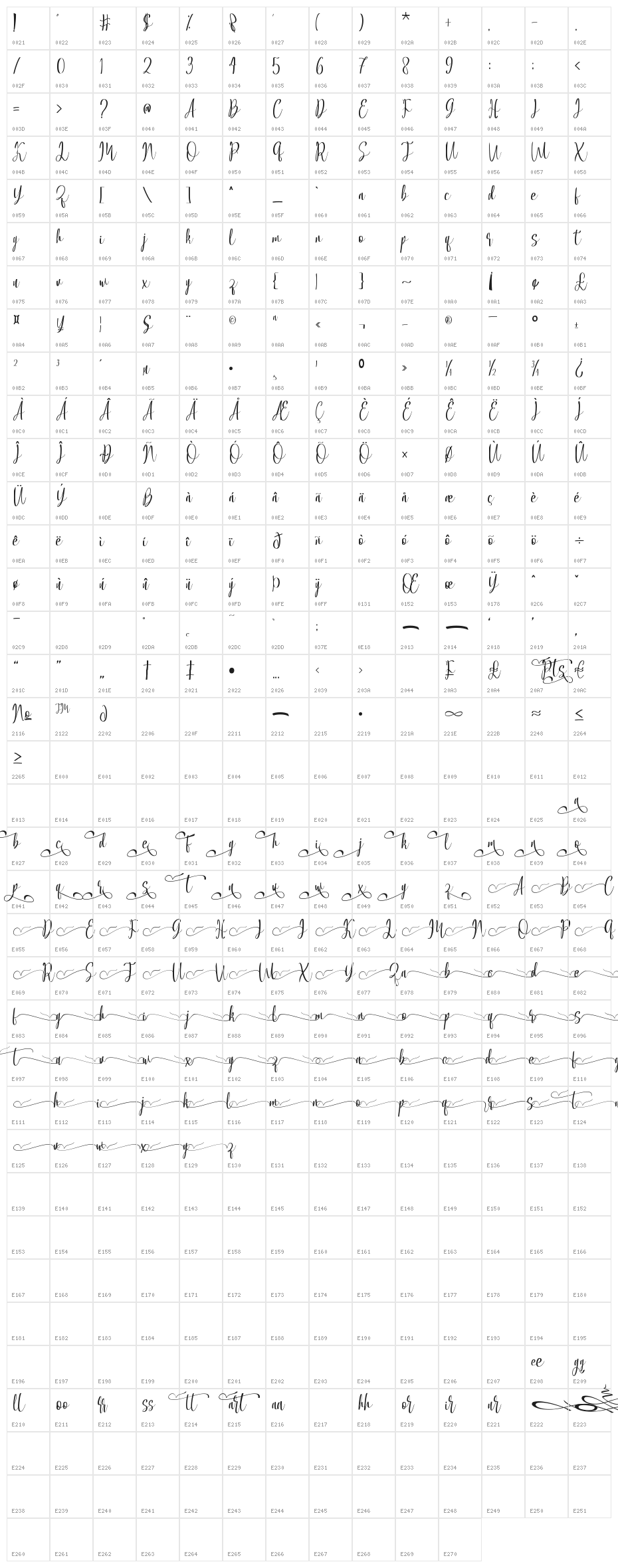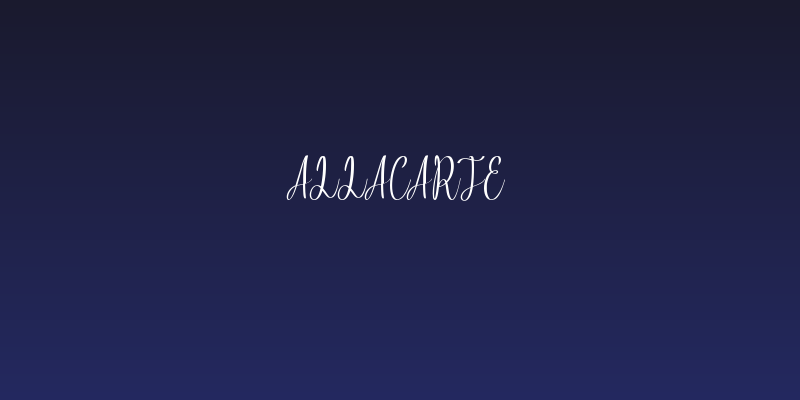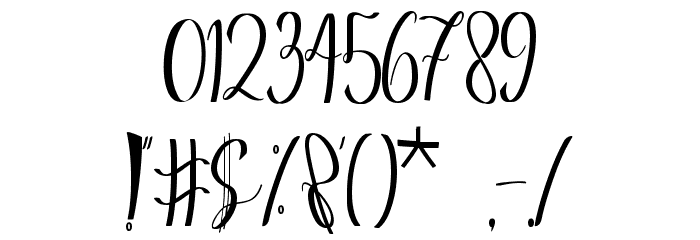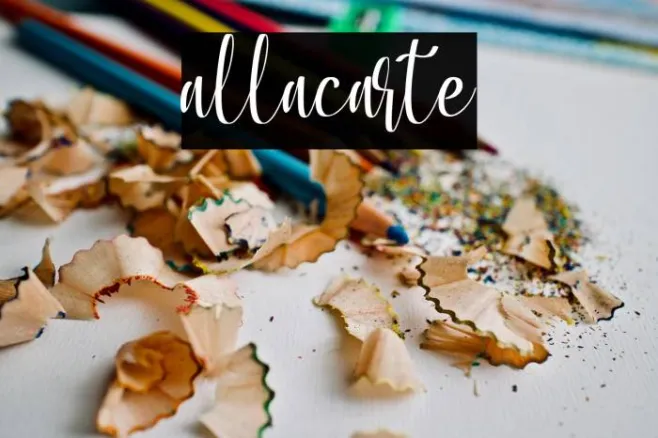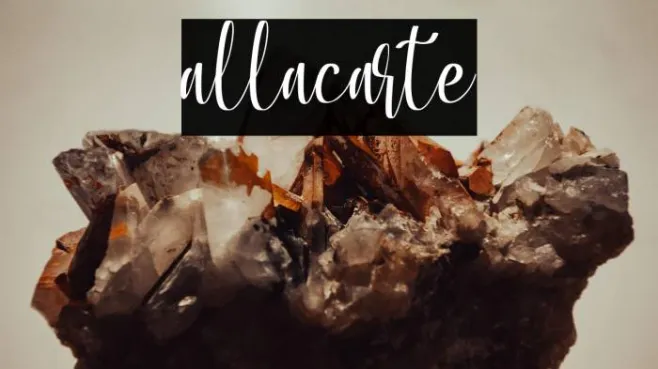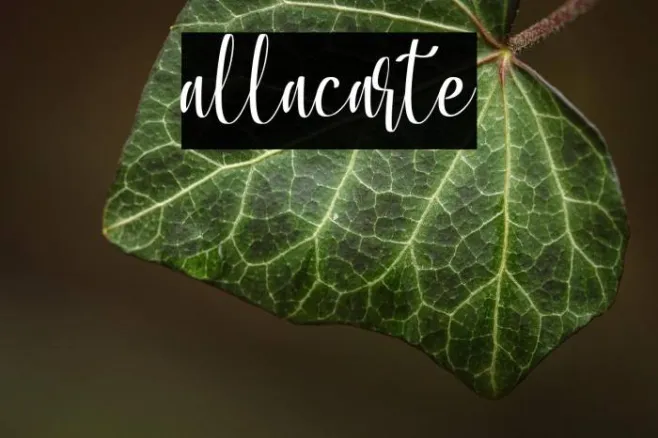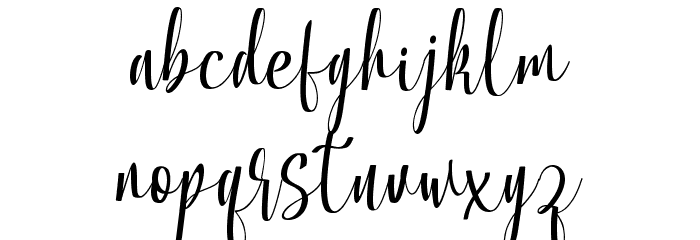
allacarte Font
allacarte Description
This elegant script font features flowing, interconnected letters that exude a sense of sophistication and grace. The uppercase characters are tall and slender, with sweeping curves and flourishes that add a touch of drama. The lowercase letters maintain a consistent style, with smooth, rounded forms that enhance readability while retaining an artistic flair. Numbers and special characters are designed to complement the overall aesthetic, ensuring a cohesive look across all text elements. The font's delicate strokes and balanced proportions make it suitable for a variety of creative applications.
| Proposed Projects | Ideal for wedding invitations, elegant branding, greeting cards, and high-end product packaging. |